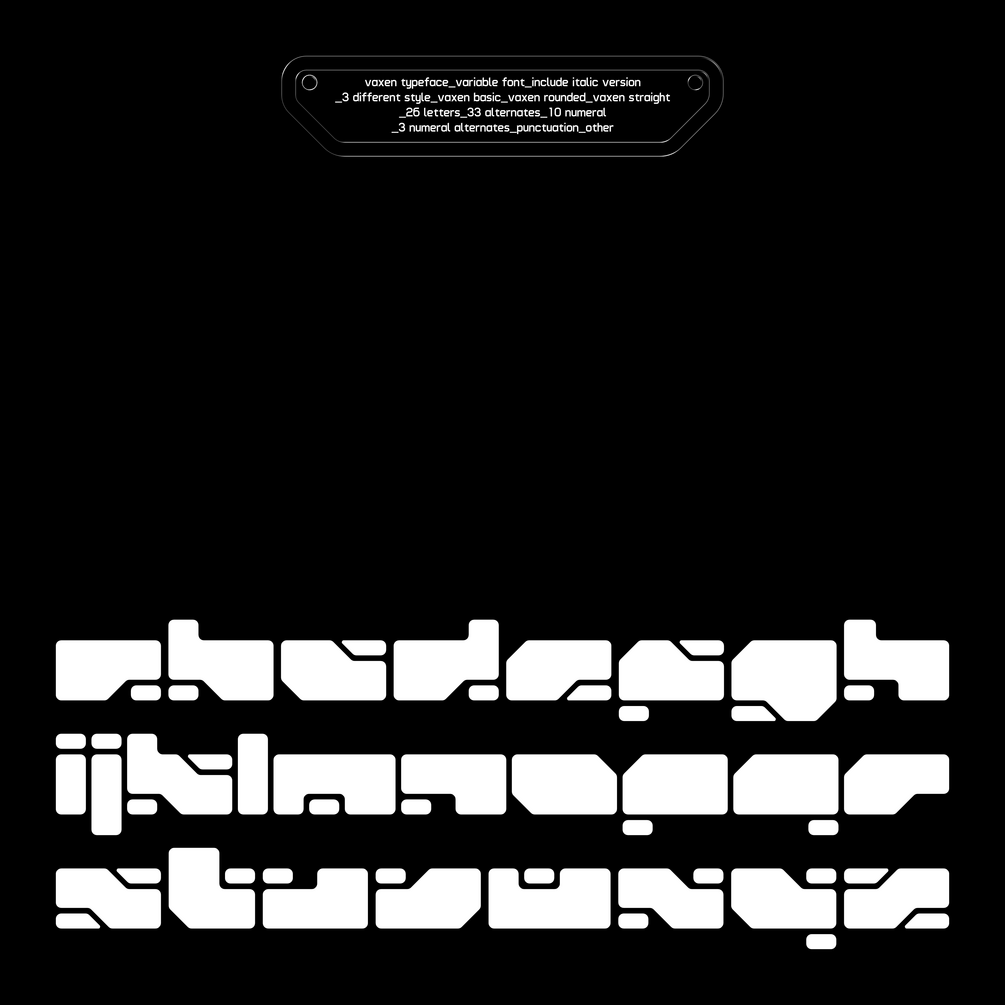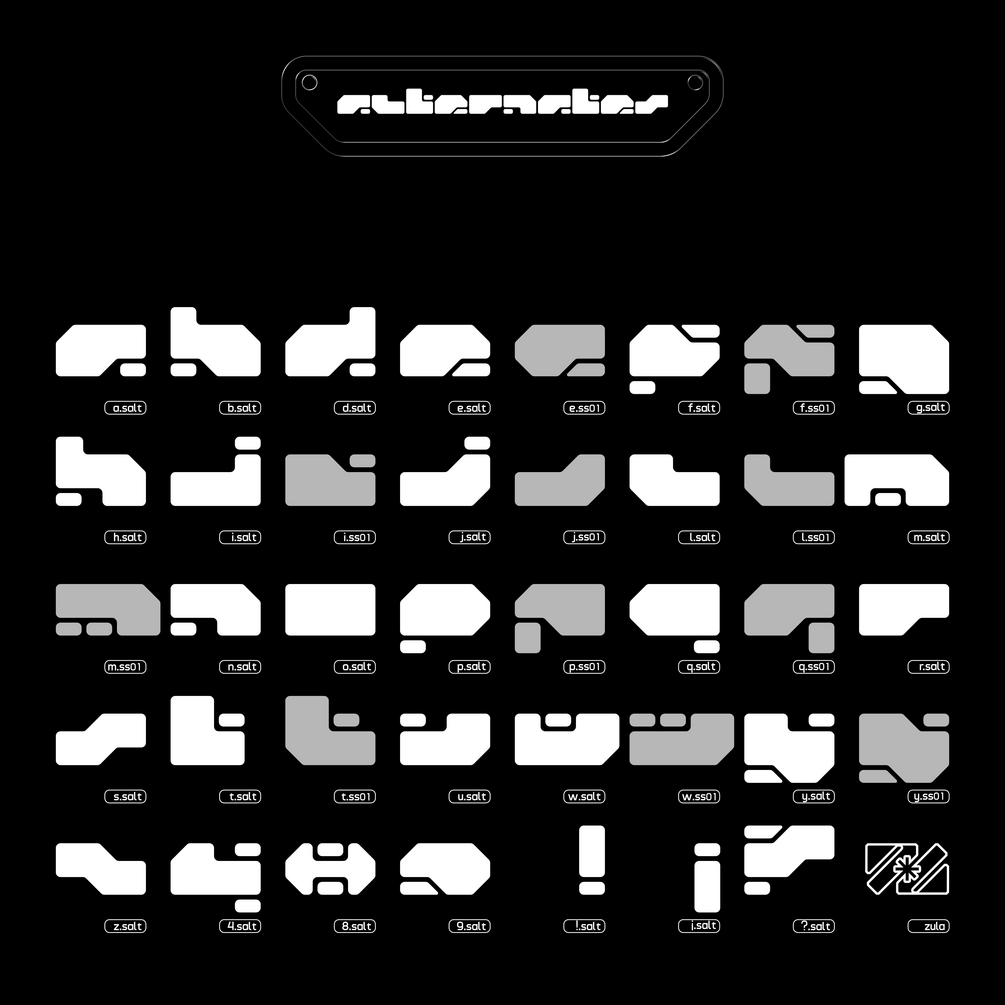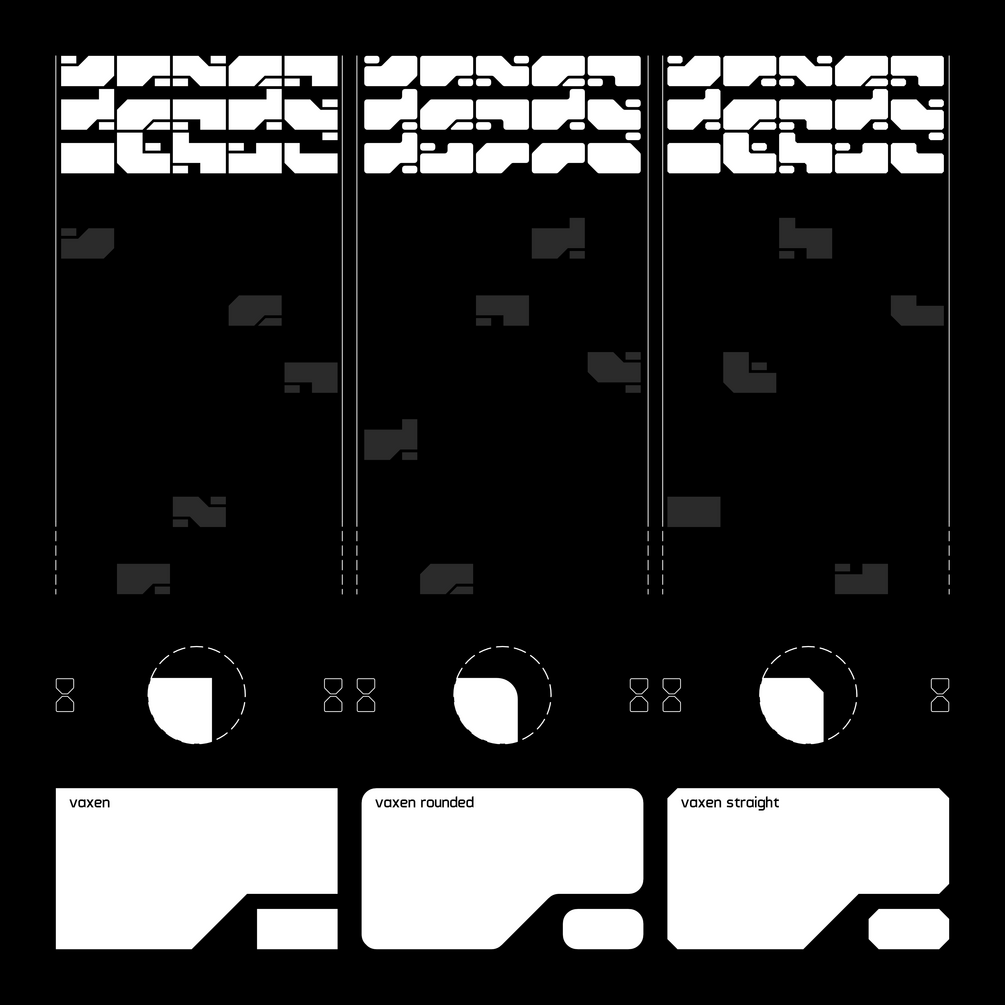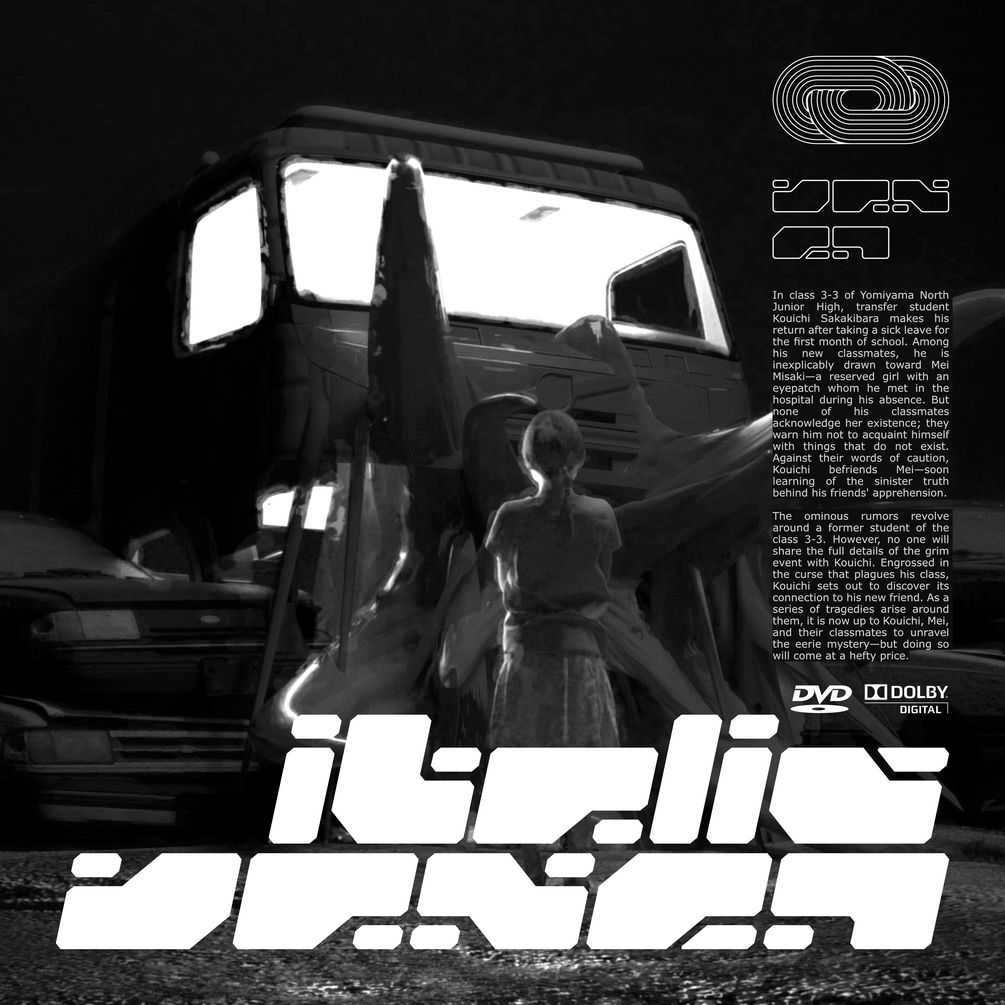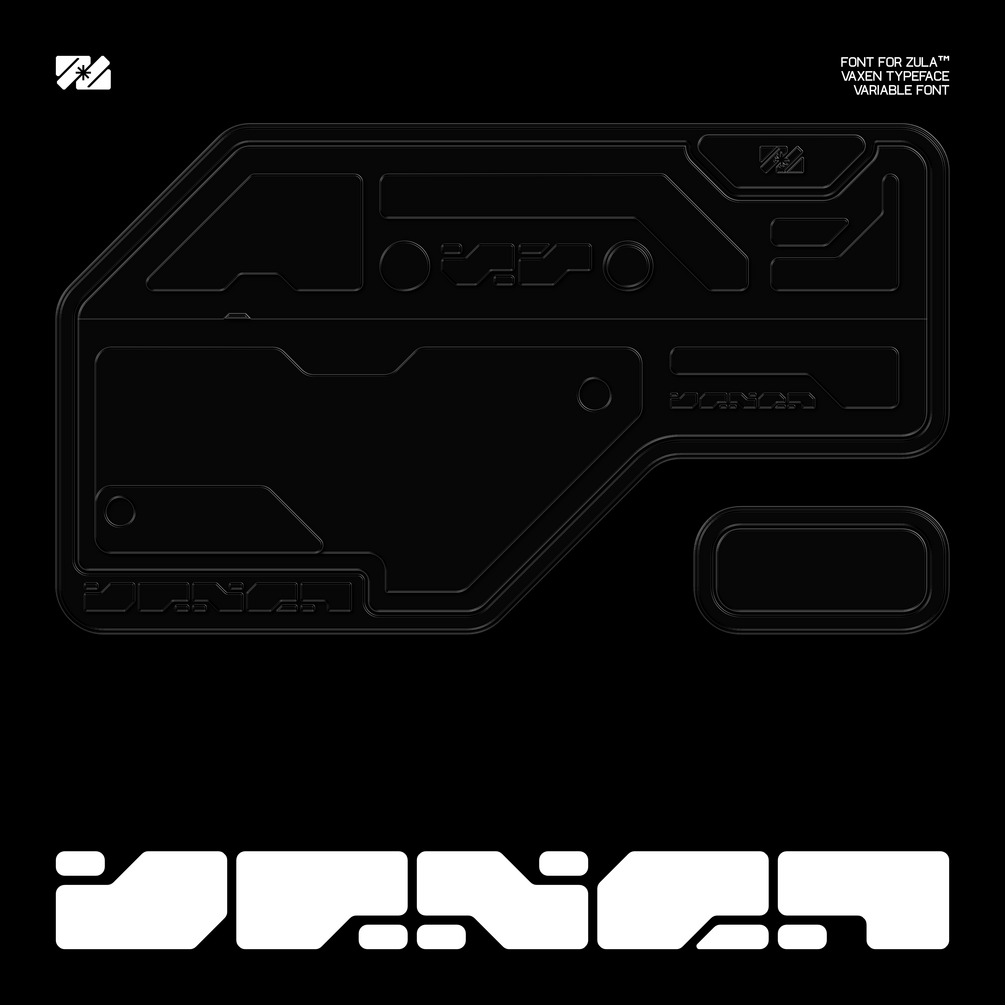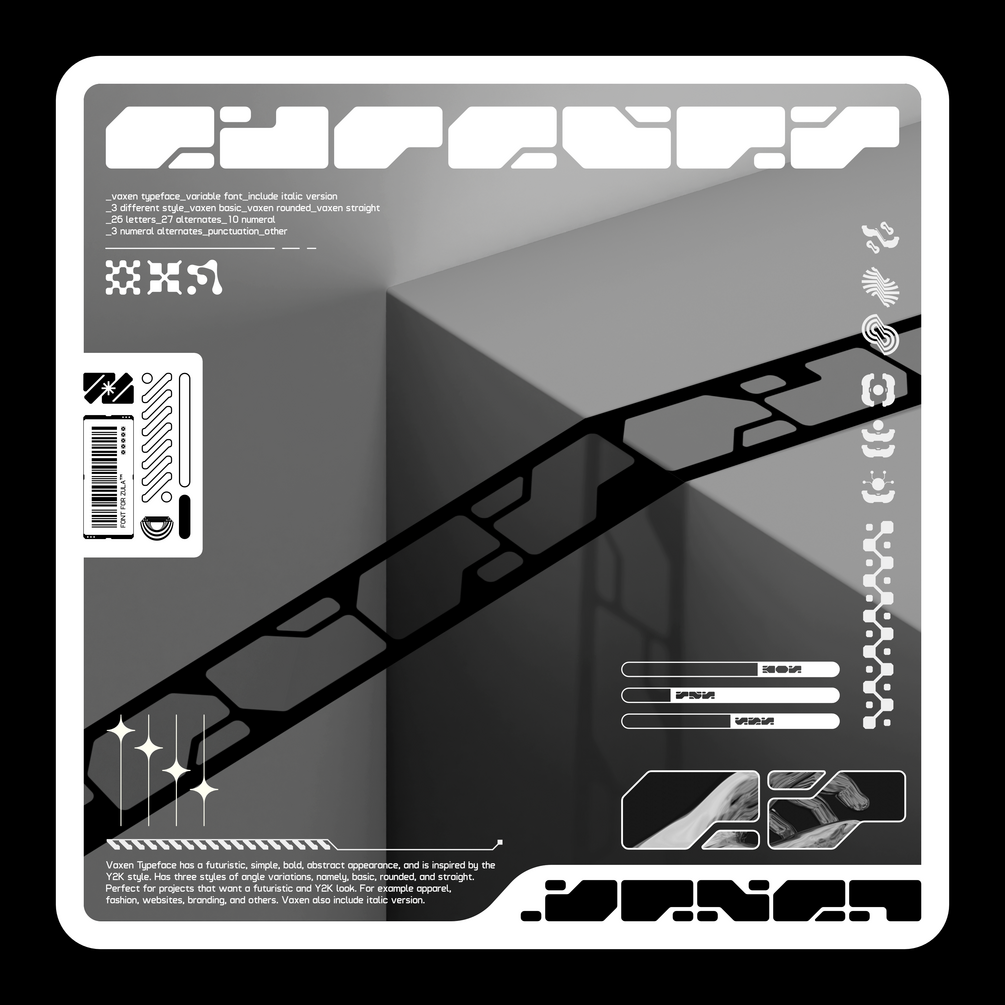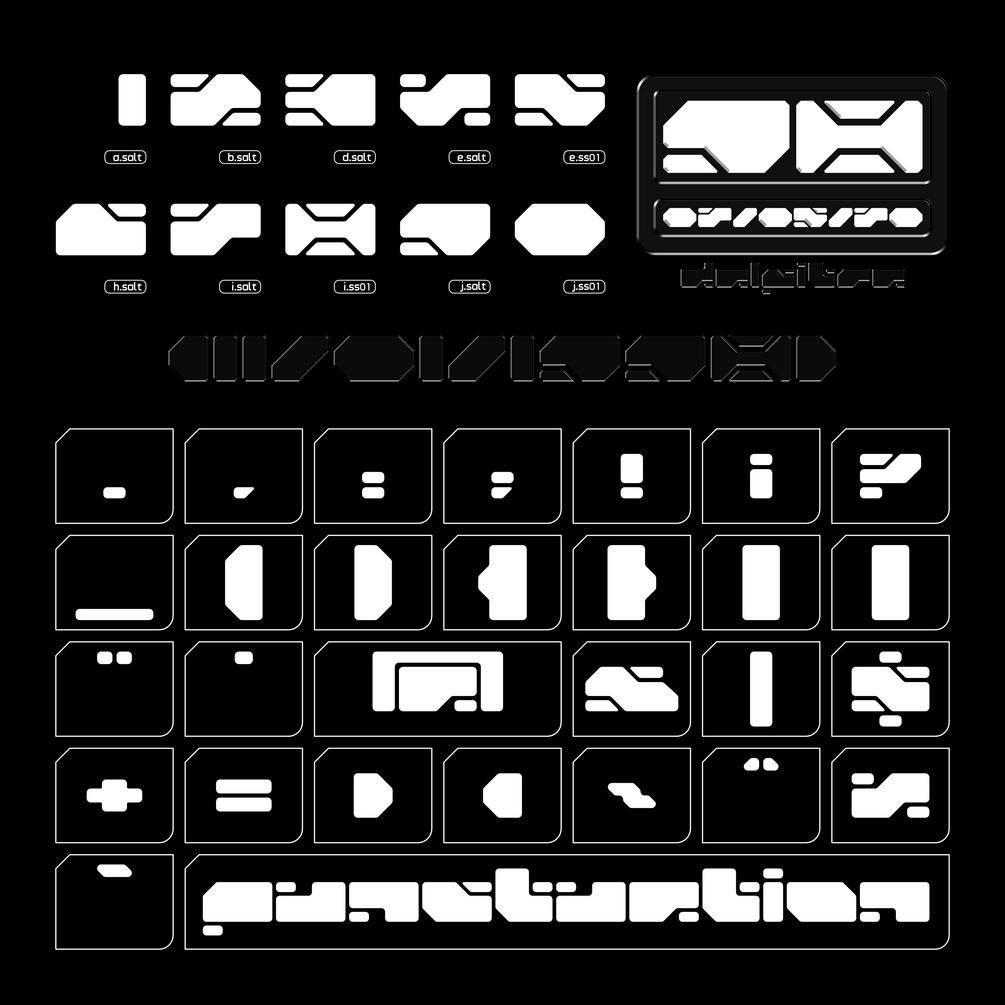
VAXEN
Vaxen Typeface is a Variable Font that has a futuristic, simple, bold, abstract appearance, and is inspired by the Y2K style. Has three styles of angle variations, namely, basic, rounded, and straight. Perfect for projects that want a futuristic and Y2K look. For example apparel, fashion, websites, branding, and others. Vaxen also includes an Italic style
Vaxen typeface has :
• 3 Different style
• Vaxen basic
• Vaxen rounded
• Vaxen straight
• Italic Style Include
• 26 Letters
• 33 Alternates
• 10 Numeral
• 3 Numeral alternates
• Punctuation
• other